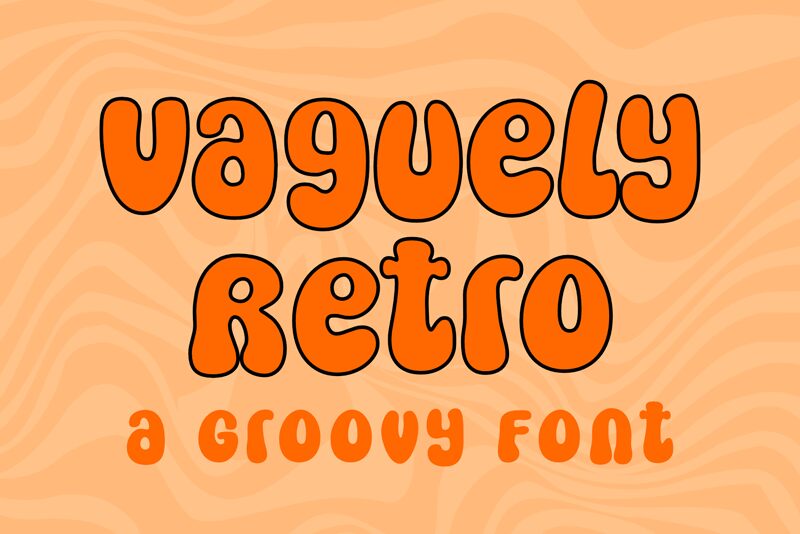
Vaguely Retro emerges from the creative minds at Letterfly Studio, embodying a groovy flair that transports you back to the heyday of bold and playful design. Its robust character shapes dance with a rhythmic nostalgia that captures the essence of an era fondly remembered for its dynamic pop culture and expressive visuals. The font's thick strokes and curvaceous contours exude confidence, making it a perfect choice for projects that require a touch of whimsy paired with visual impact.
This font shines in contexts craving standout lettering-think eye-catching headers, spirited advertising, and anything else desiring a dash of vintage charm without sacrificing readability. Vaguely Retro is poised to infuse your design work with a zest that is both fashionably old-school and decidedly modern.